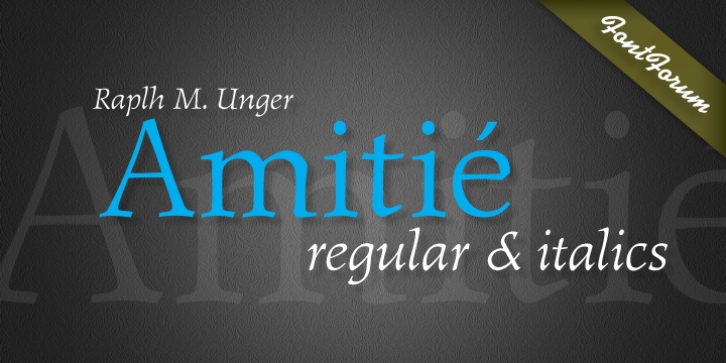
Amitié was designed by Ralph Unger and published by URW Type Foundry. Amitié contains 2 styles and family package options.
Amitié is another typeface design by Ralph M. Unger. With its French origin already hinted at in the name, Amitié comes across as friendly and lively. This design reflects Unger's interest and love in classical, expressive type with the right sense of style.
Amitié is very readable at small sizes, but it can be used as well in headline sizes, e.g. for book title and the like. As usual for URW++ fonts, Amitié is supplied with the full range of Latin glyphs including those for Eastern Europe.